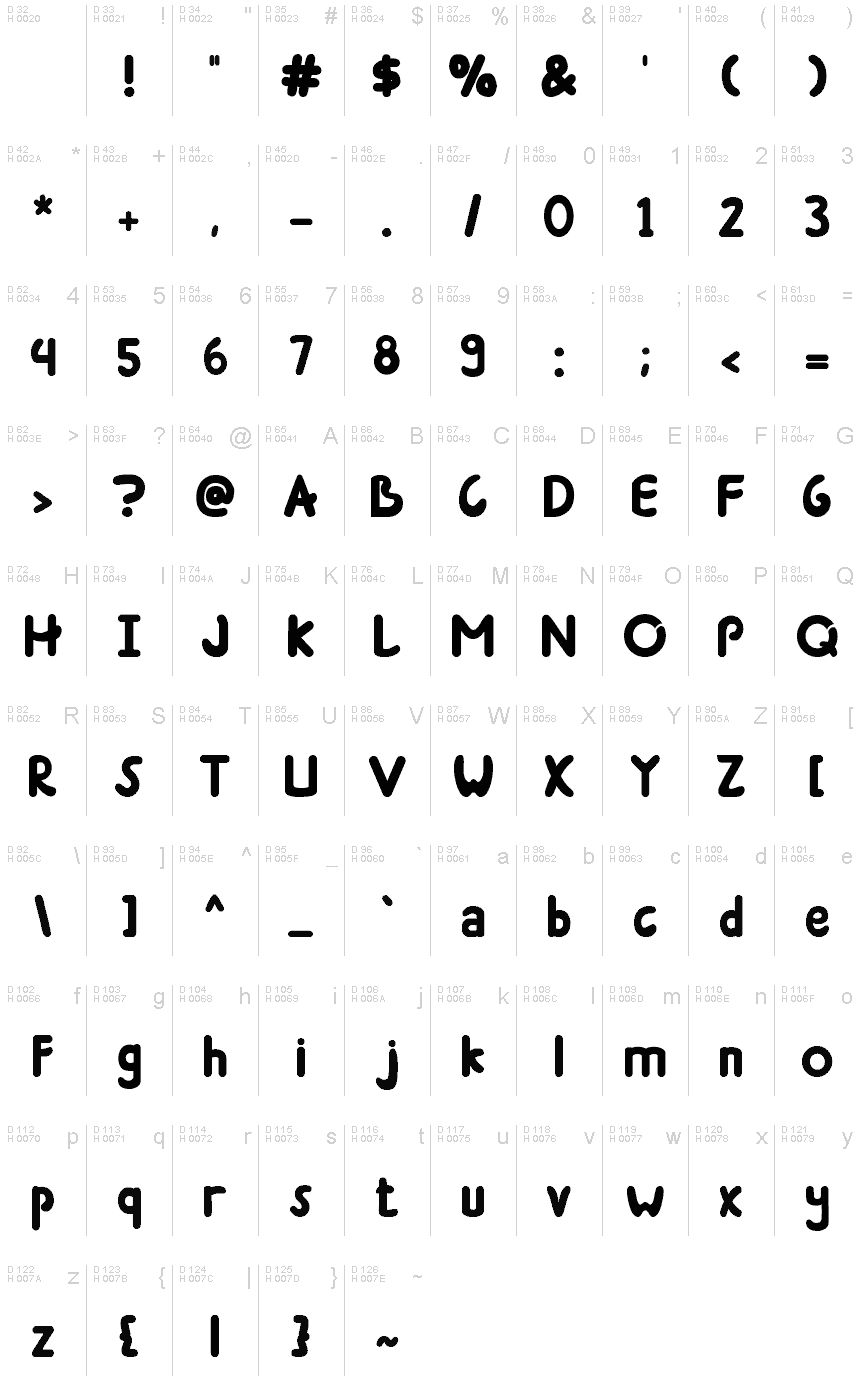
Learnings
Learnings by Nomlimofont is a captivating display font that radiates a sense of exploration and discovery. Its bold, dynamic letterforms exude an air of playfulness, seamlessly blending modern and vintage aesthetics. The slightly irregular curves and unexpected angles create a harmonious tension, inviting the viewer to engage with the typography on a deeper level. This font's distinctive personality makes it an excellent choice for branding, editorial design, and creative projects seeking to convey a spirit of inquisitiveness and growth.
Learnings' versatility shines through its ability to command attention in both large and small applications. Its strong presence lends itself well to headlines, titles, and impactful display text, while the balanced rhythm and legibility allow it to be utilized for body copy or supporting text as needed. This font's adaptability makes it a valuable asset for designers seeking to craft visually striking and memorable designs across a range of mediums.